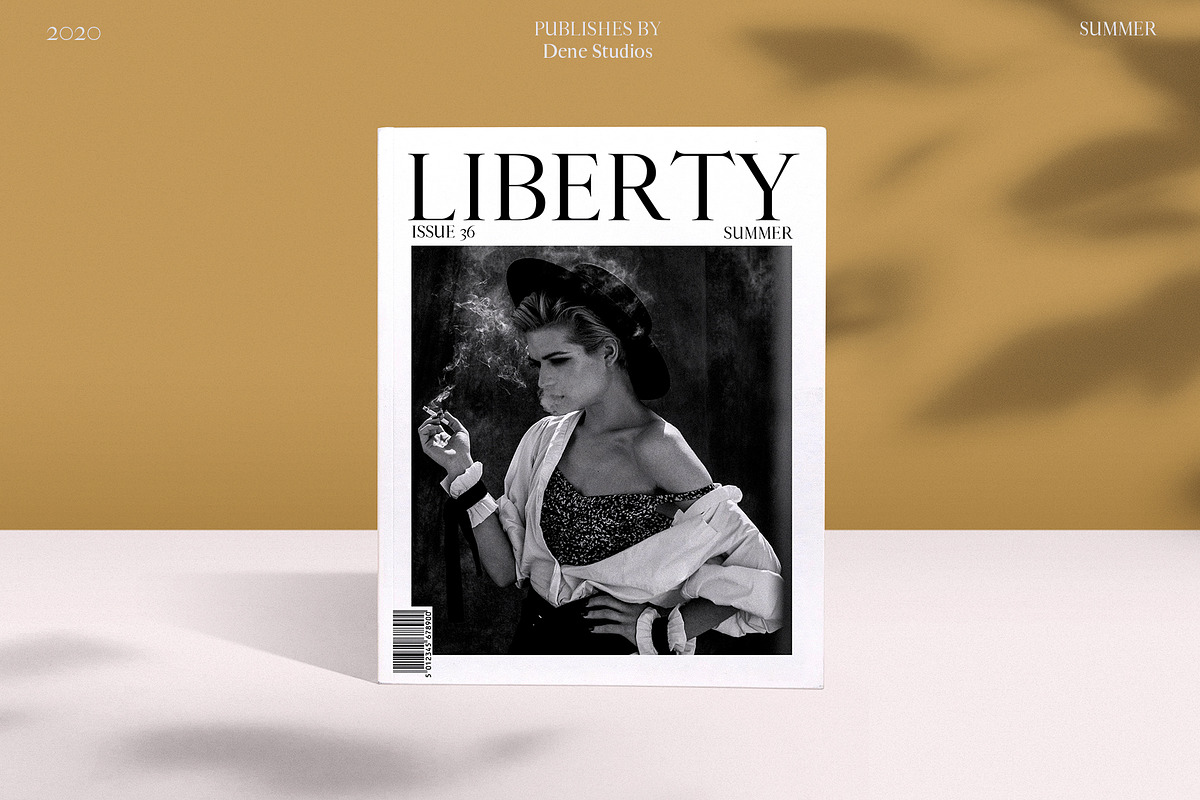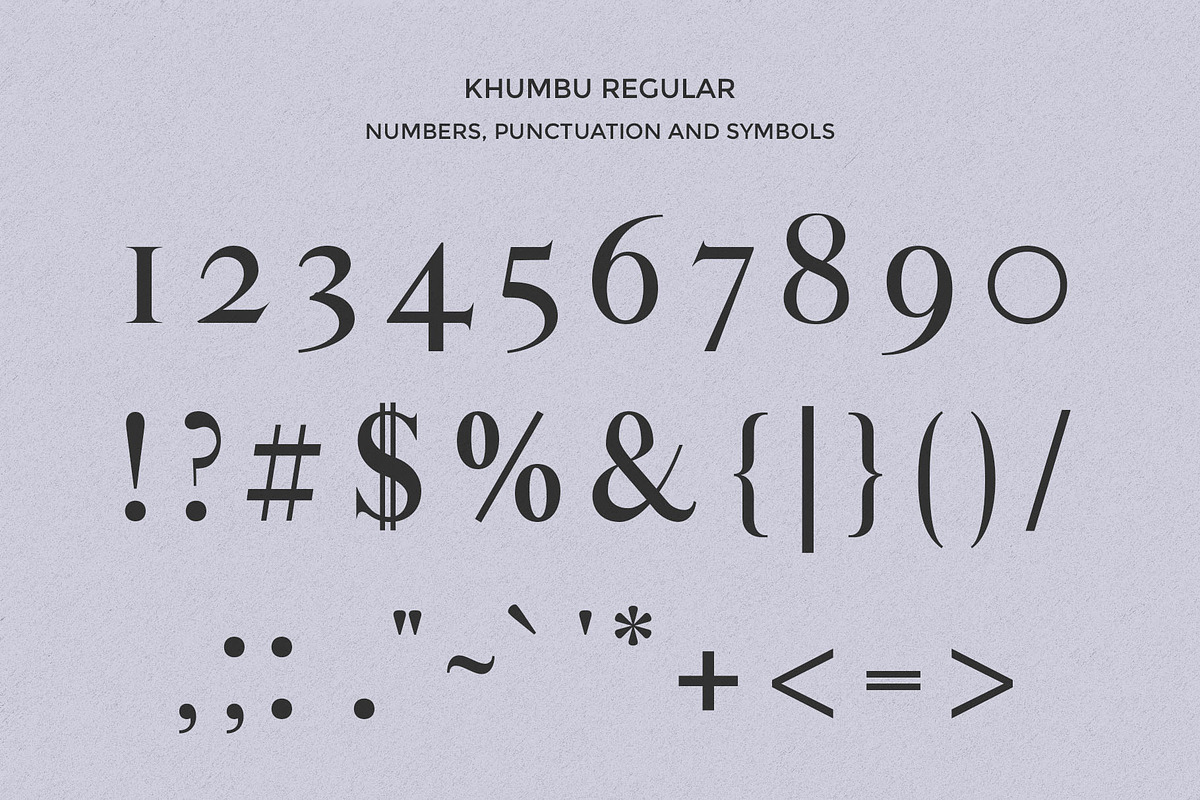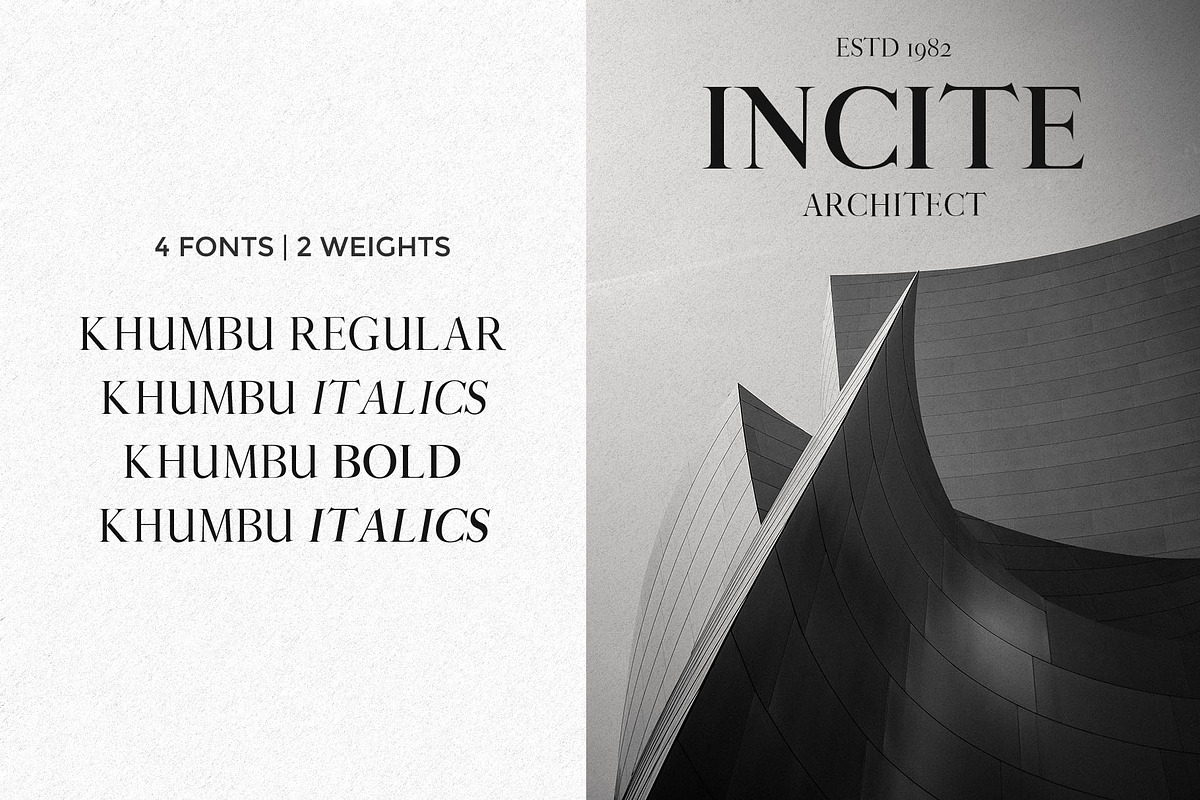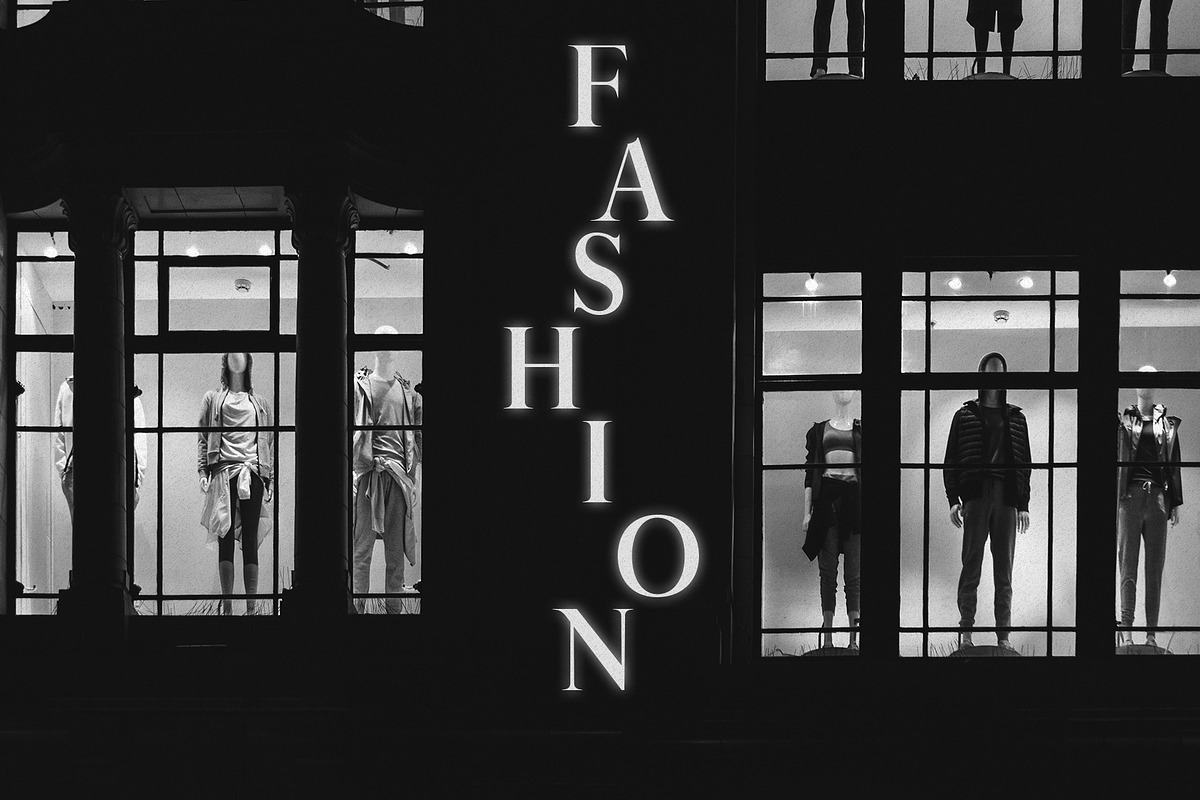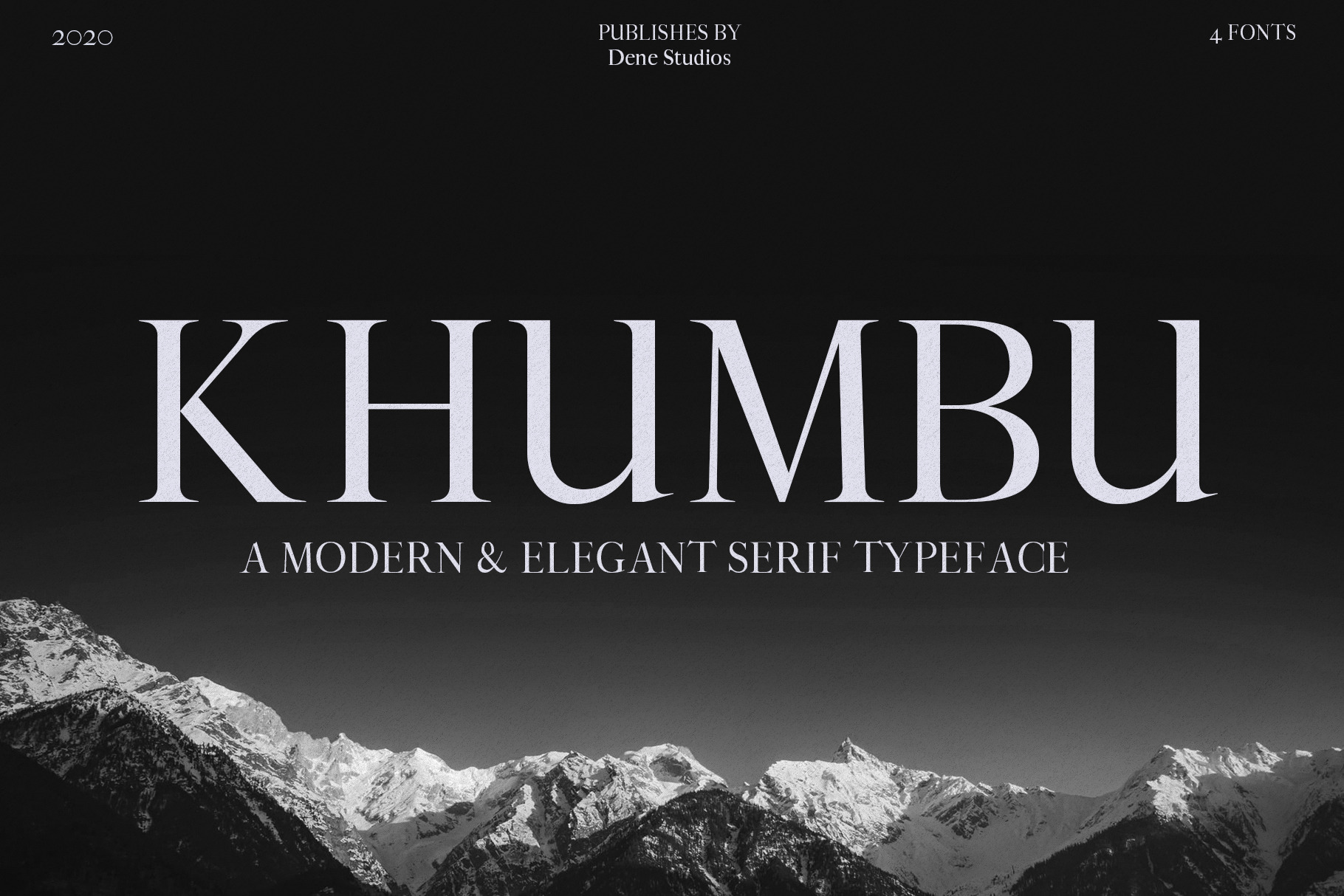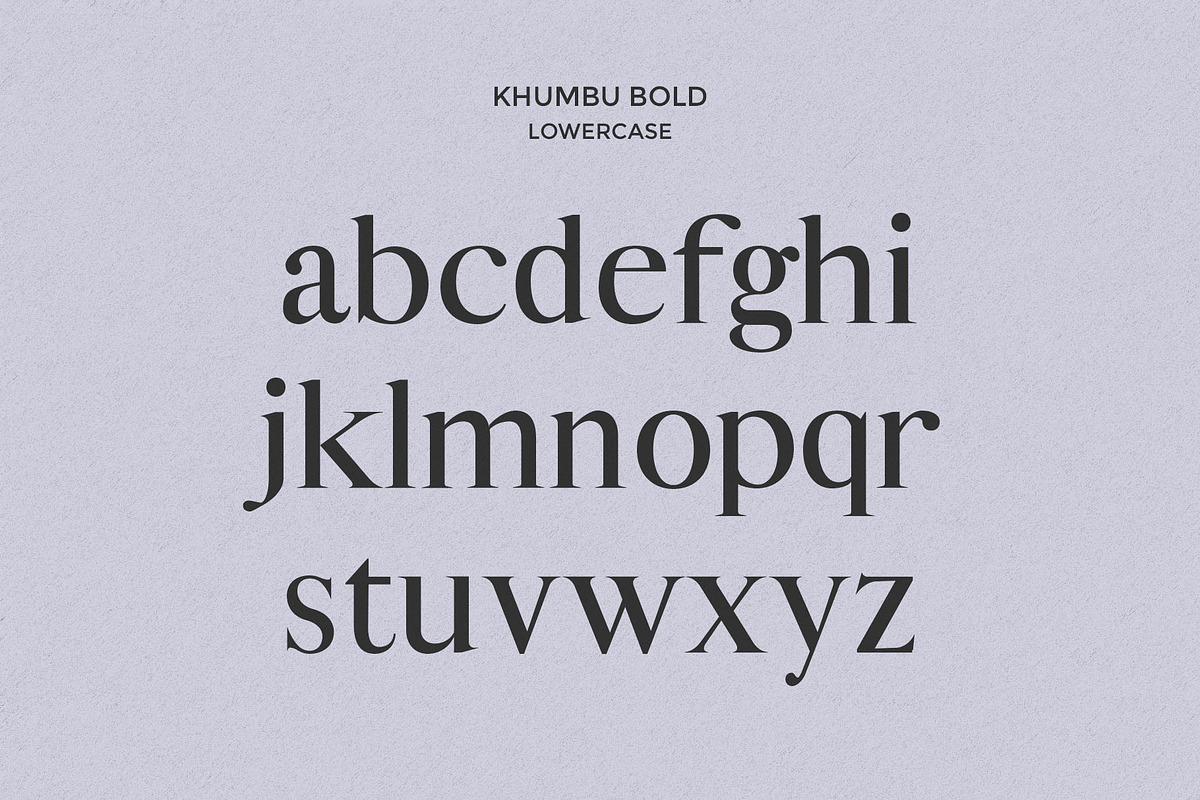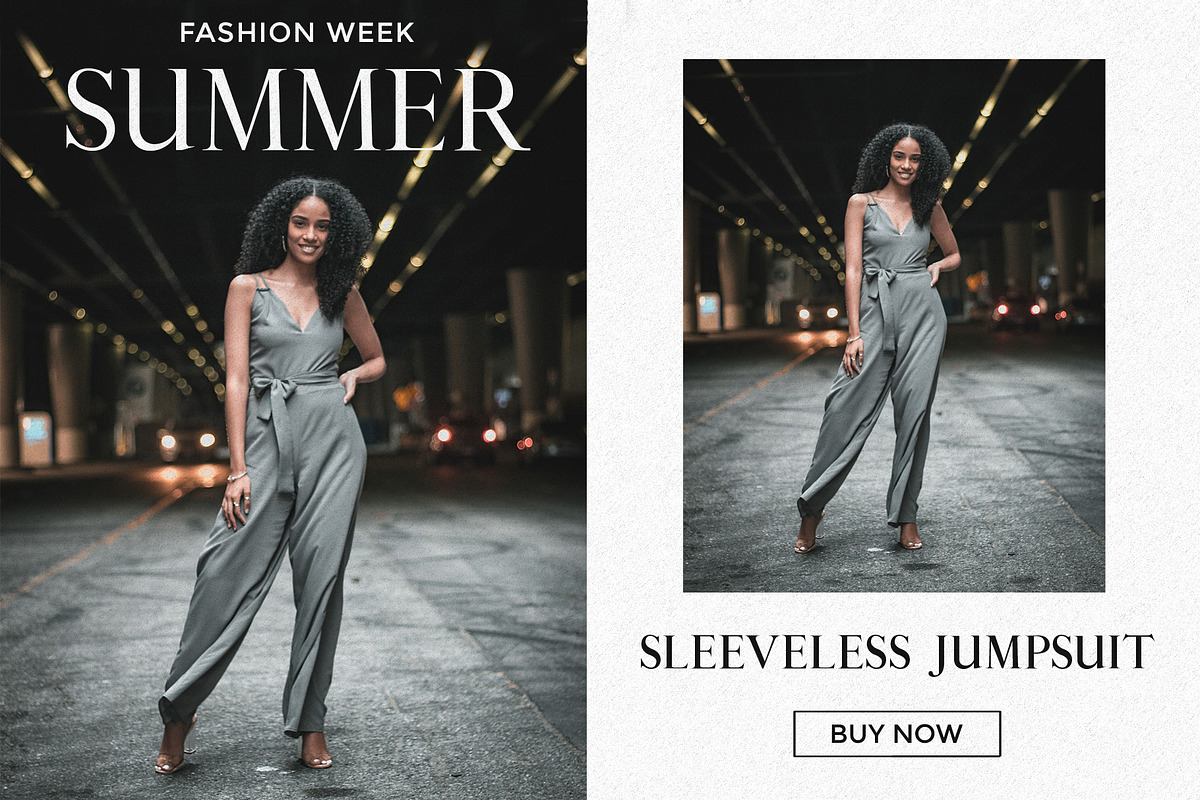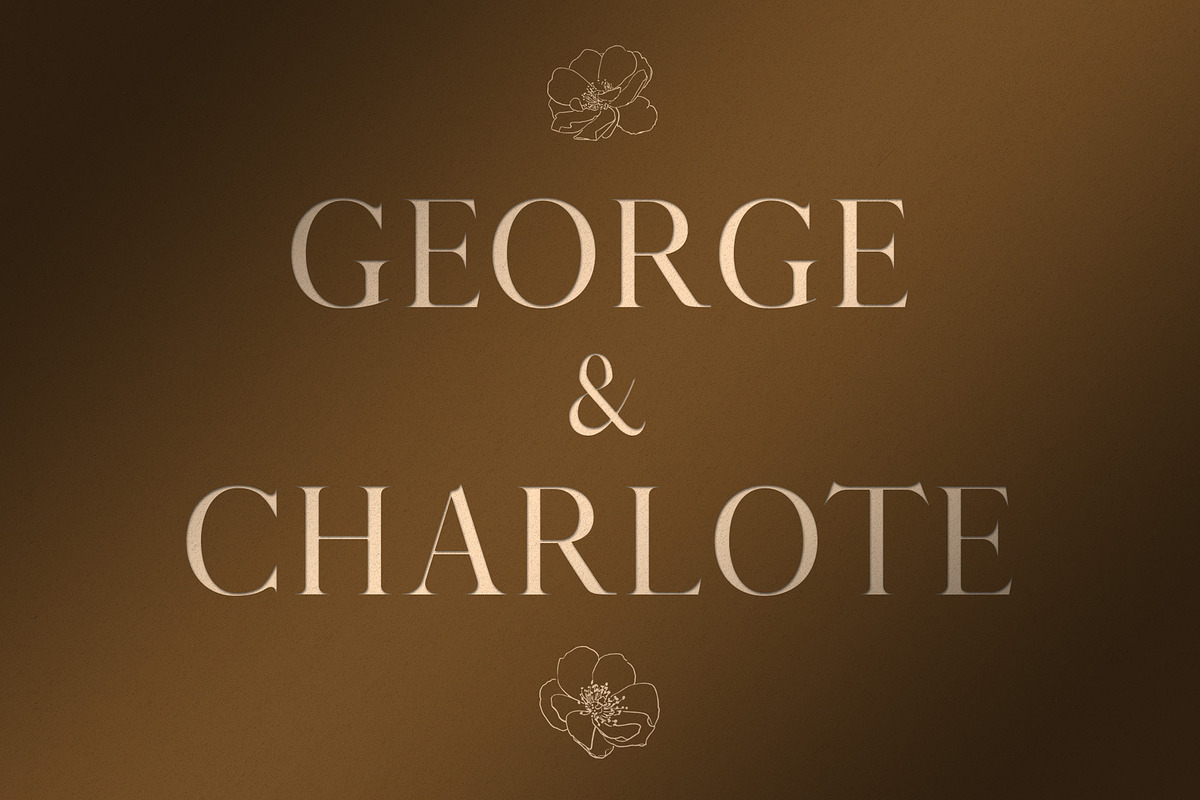
Khumbu typeface
Khumbu is a modern and elegant serif typeface. With both masculine and feminine qualities; this font is perfect for your next project and an essential typeface to own.
Khumbu is great for project such as: fashion, magazines, logo, branding, photography, invitations, wedding invitation, quotes, blog header, poster, advertisements, postcard, book, websites, etc.
- Uppercase & lowercase letters, numbers, punctuation